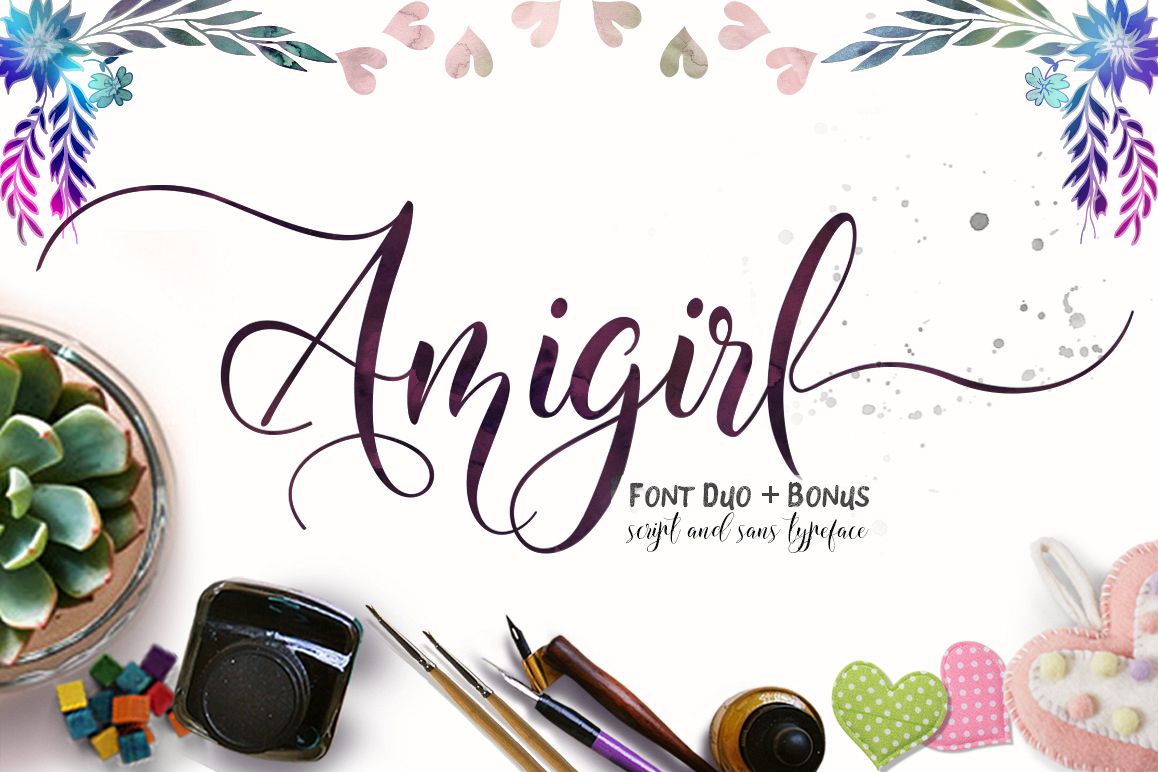
Amigirl Script
Amigirl Sans Swash
Duo Font Script & Sans Brush + BONUS
Amigirl Script font calligraphy is modern with smooth lines,
pointy-edged pull pens, a blend of classic and modern and elegant touch.
Can be used for various purposes.such as the title, signature, logo,
correspondence, wedding invitations, letterhead, signage, labels,
newsletters, posters, badges, etc. Amigirl Script features 433 glyphs
The Features of this fonts is:
• Standart ligatures
• Discretionari Ligatures
• Swashes
• Stylistic sets